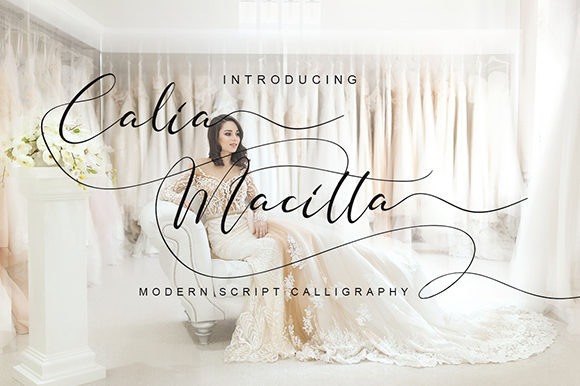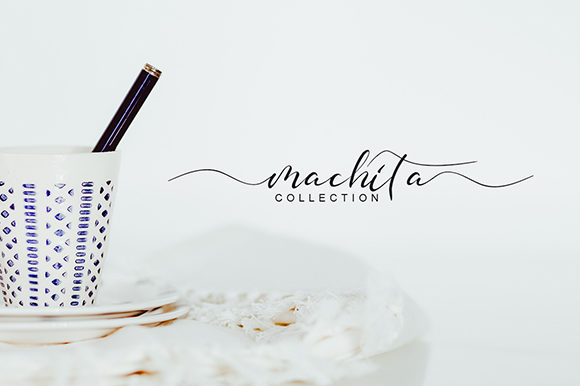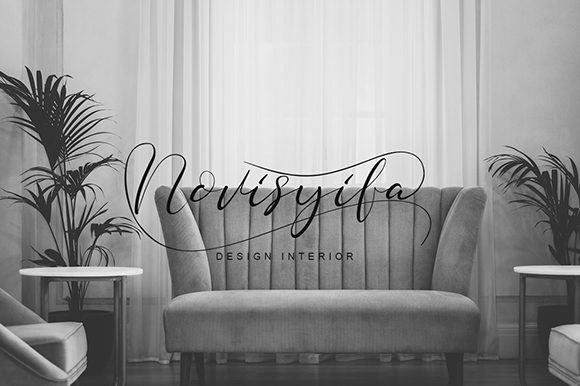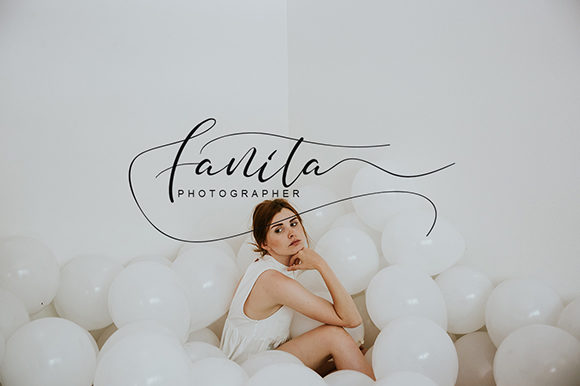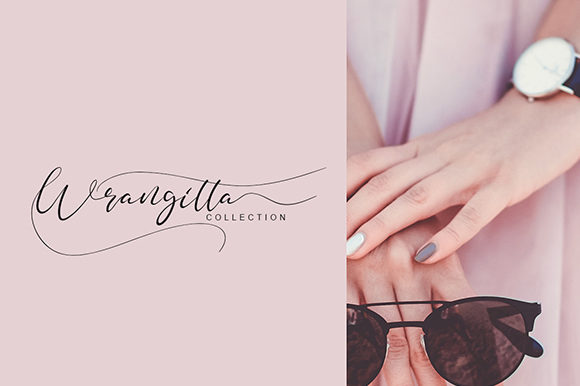
Calia Macitta Font
Calia Macitta is a stunningly rich and elegant handwritten font with a bold feel. It will turn any creative project into a true stand out!